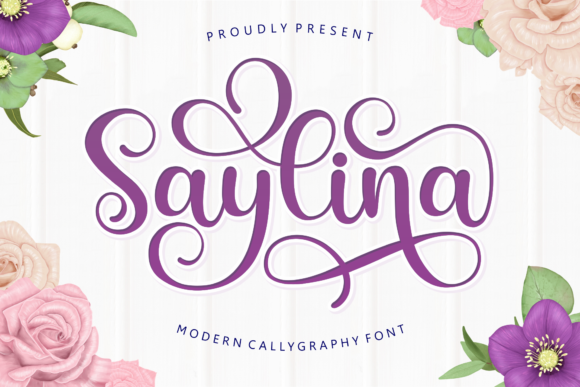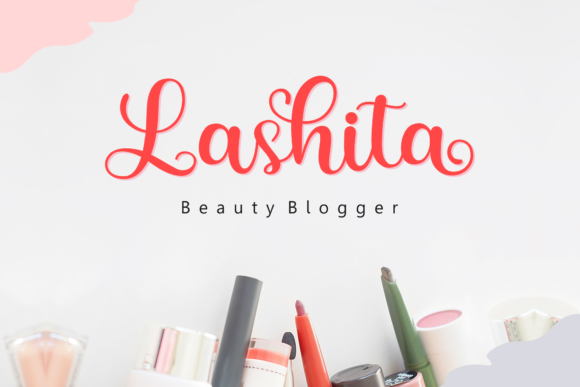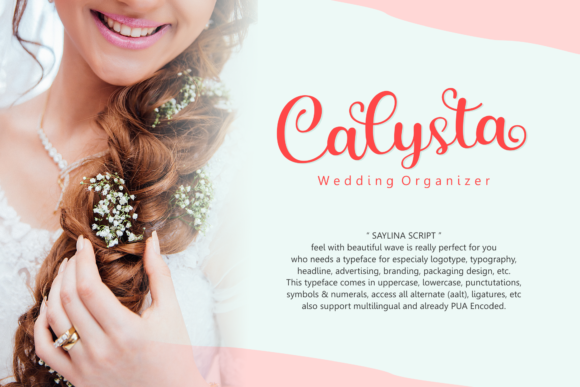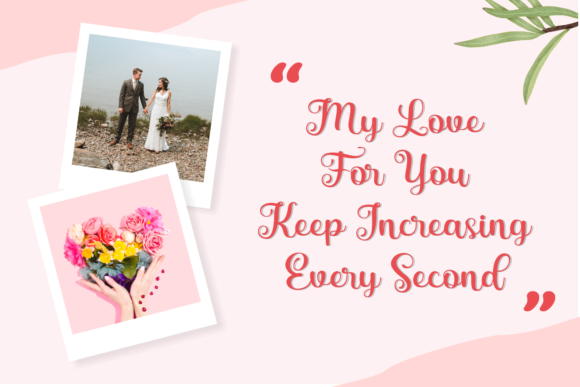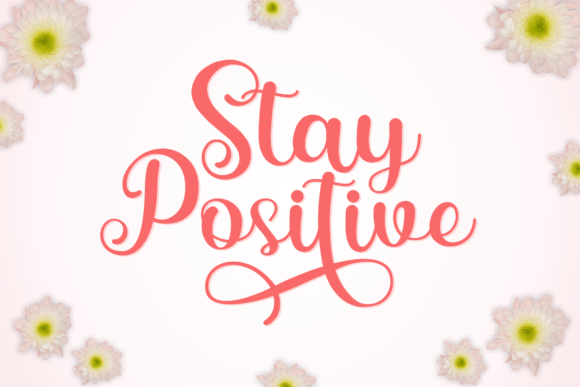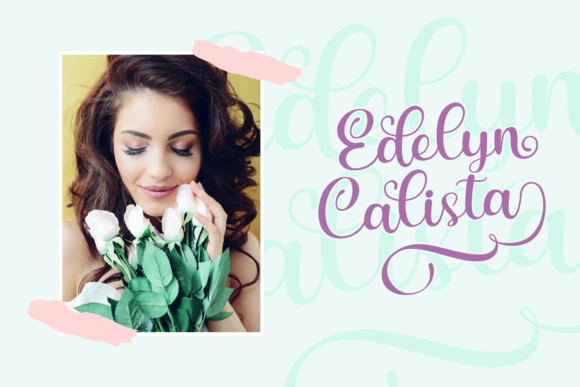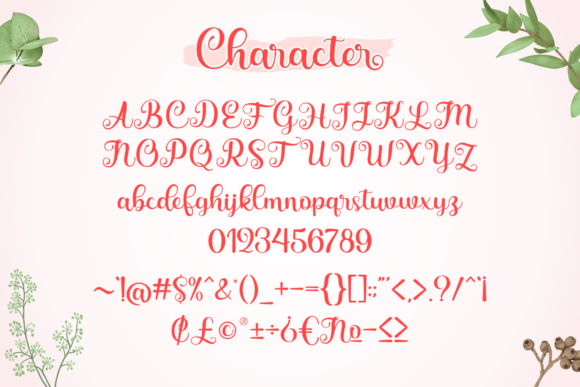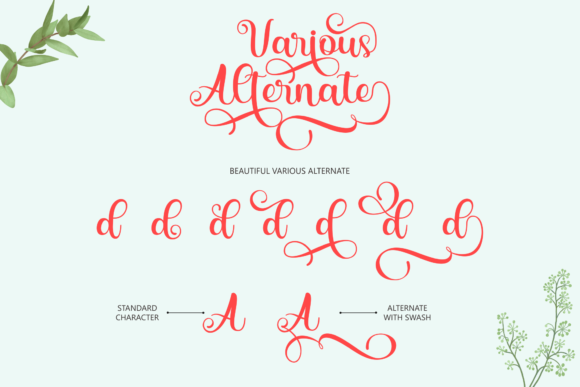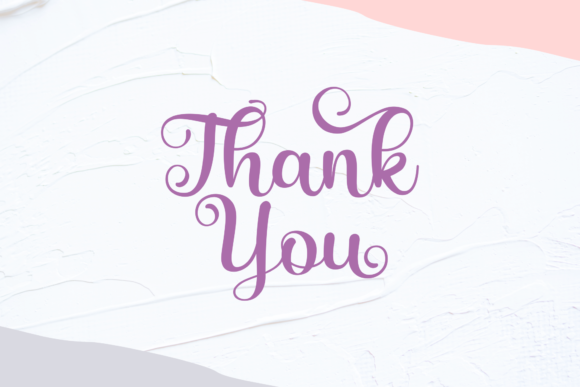
Saylina Font
About Saylina Font
Saylina is a unique and beautiful handwritten font. It features amazing swashes and ligatures that make the script incredibly versatile. Whether you’re looking for fonts for Instagram or calligraphy scripts for DIY projects, Saylina will turn any creative idea into a true piece of art!